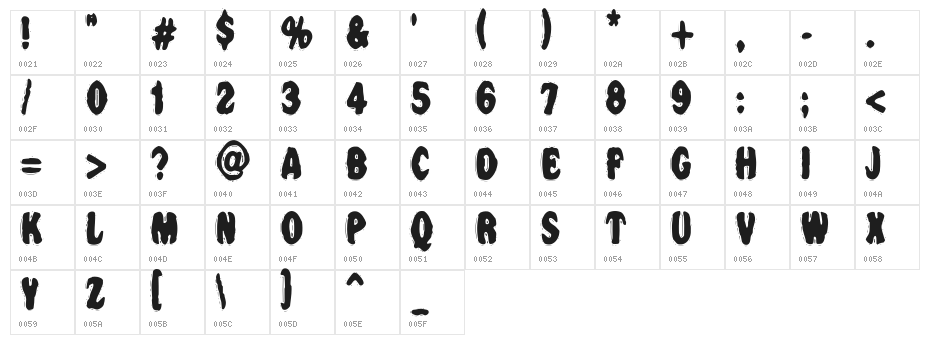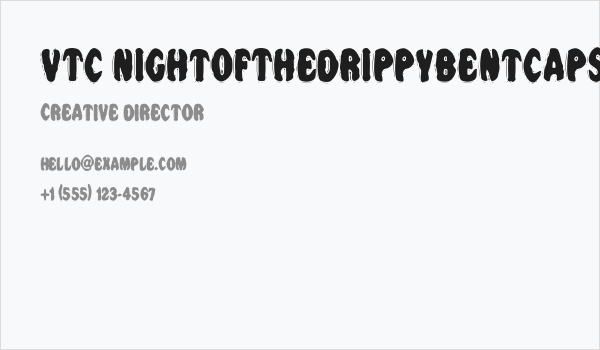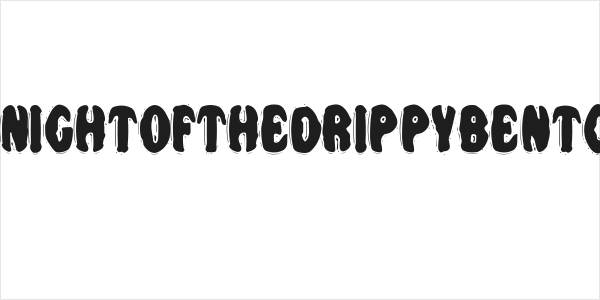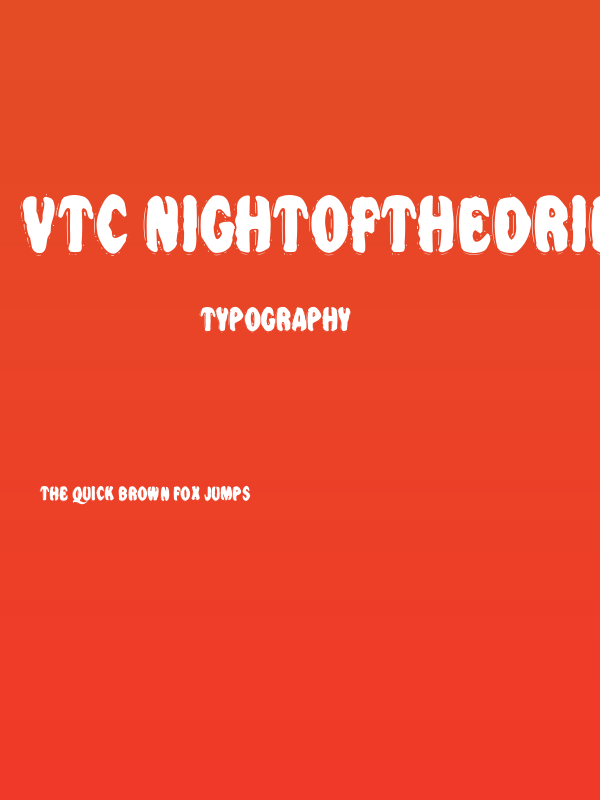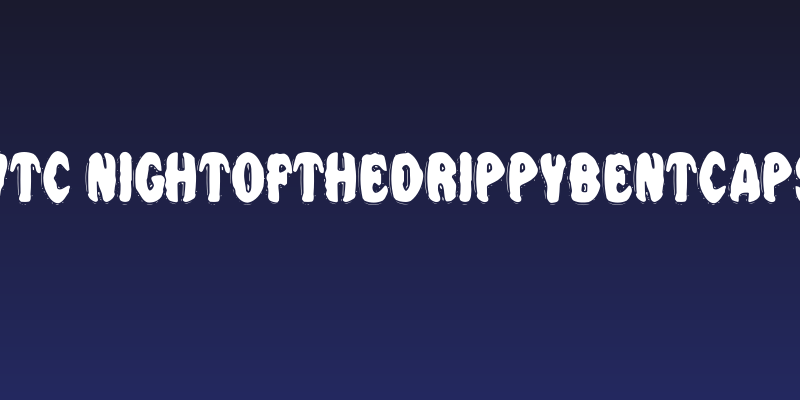
VTC NightOfTheDrippyBentCaps Font
VTC NightOfTheDrippyBentCaps Description
This font features a bold and playful design with a dripping effect that gives it a unique, slightly eerie appearance. The characters are rounded and thick, with a consistent drippy motif that makes them stand out. The uppercase and lowercase letters maintain a cohesive style, while the numbers and special characters follow the same dripping theme. This font is ideal for projects that require a fun, eye-catching look, such as Halloween-themed designs or creative posters. Its boldness ensures high visibility, making it suitable for headlines and titles.
| Proposed Projects | Halloween posters, creative event flyers, children's book covers, themed party invitations. |